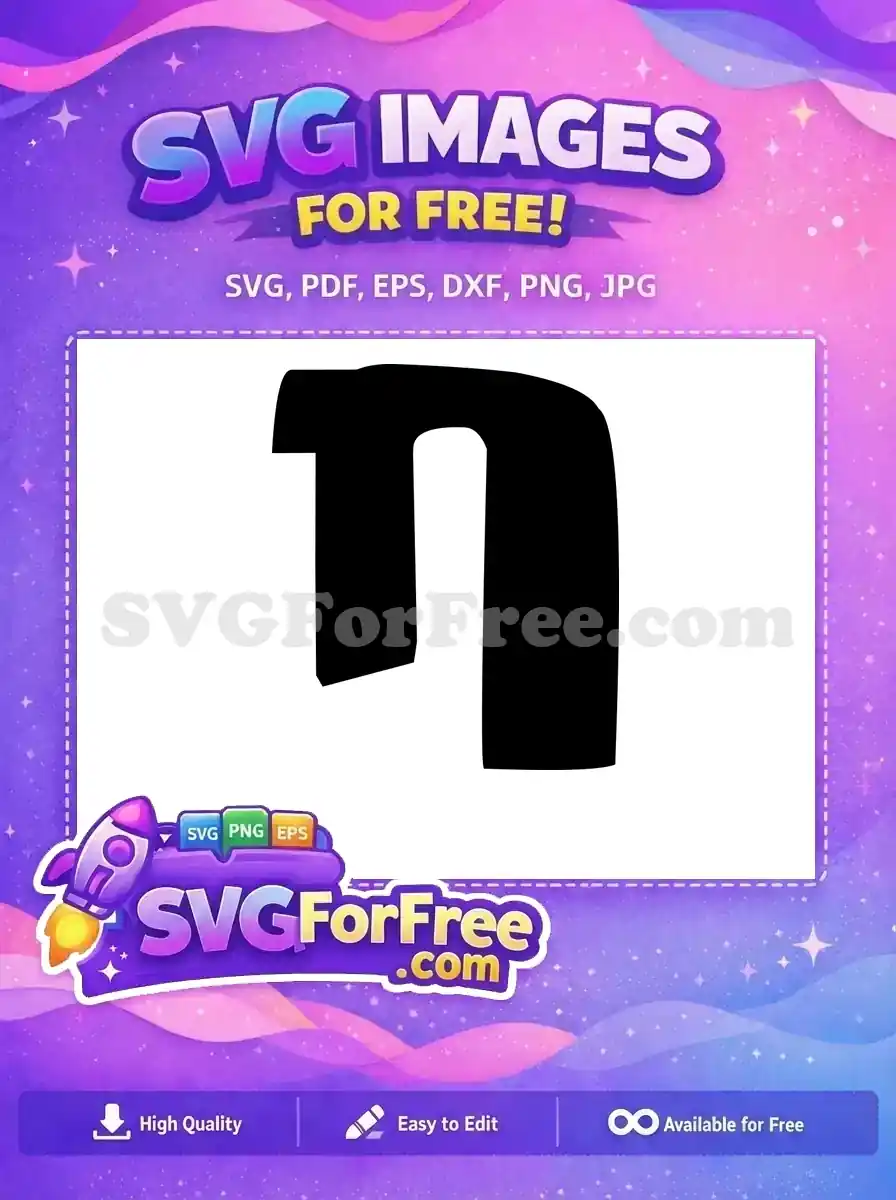
Free Stitch Font Letter N Free Lilo Free SVG – Instant Download
Simple bold lowercase n with a curved arch, a no-cost SVG for font lovers.
Free Stitch Font Letter N Free Lilo Free SVG